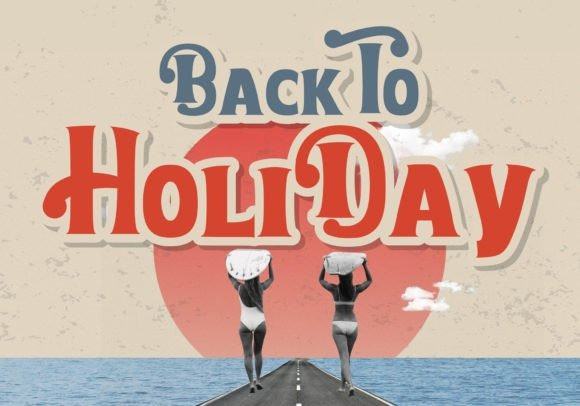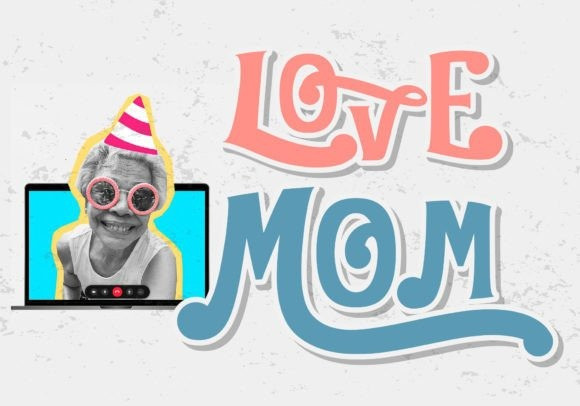
The Retro Font
The Retro font is a clean and smooth vintage-style retro font. Inspired by the retro typography and typography of the 70s and 80s, anything written in this font is instantly recognizable and will grab attention. Use this display font to add a special retro touch to any design idea you can think of.